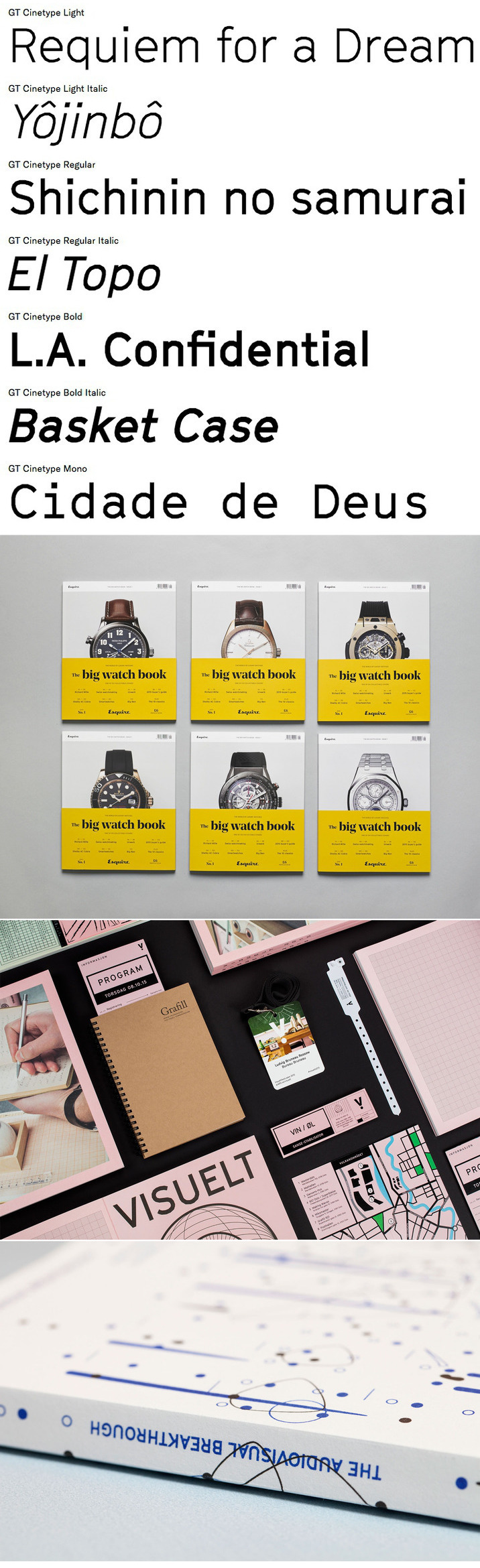
GT Cinetype (Grilli Type) Released in 2015 Available in 7 Styles Designed by - Mauro Paolozzi Rafael Koch Web Site: https://www.grillitype.com/typefaces/gt-cinetype About GT Cinetype is based on a design engineered for a cinema subtitling machine. By using a laser to erase the color layer of the film, very small and brilliantly white letters appear. The laser can only move in straight lines, so the typeface contains no curves.